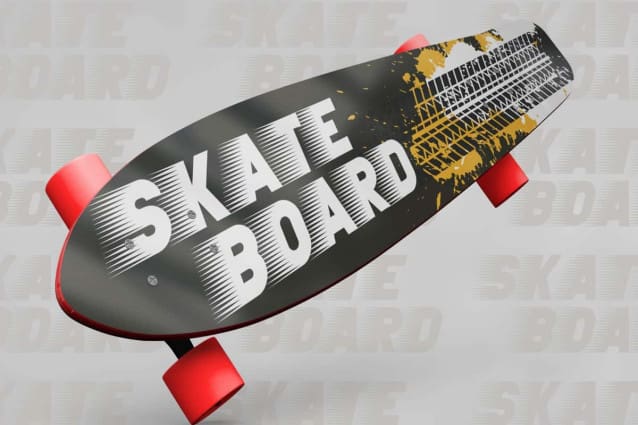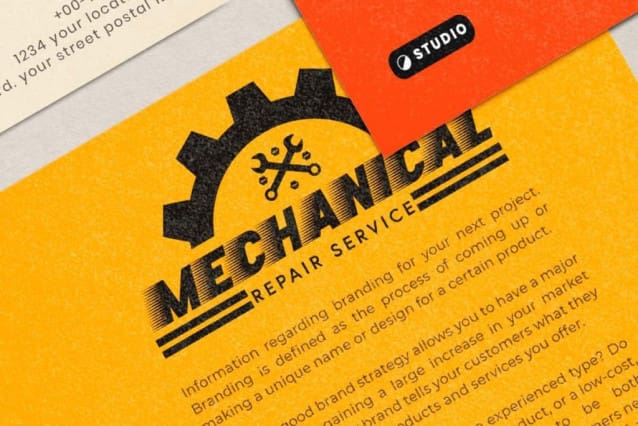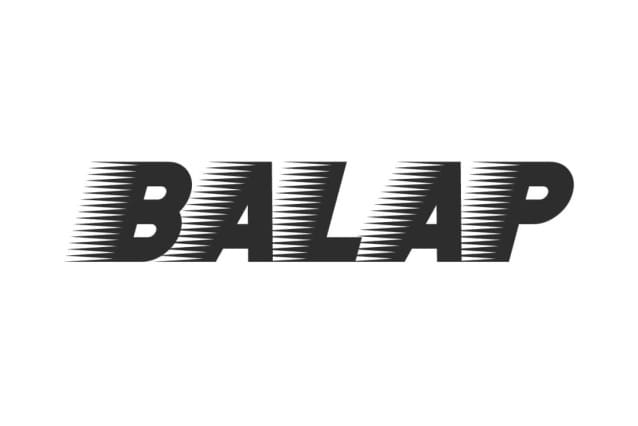
Balap Font
Balap Font is a crisp speed display font with a unique shape of strip lines representing the theme of the racing font. Specially crafted with bold action style and modern feel to make your designs more memorable and stand out. Great for adding sports themed style and overview. This font is for accessories and merchandise, advertisement, automotive repair shop, game, graphic design, motorbike, race, sports, and so on.